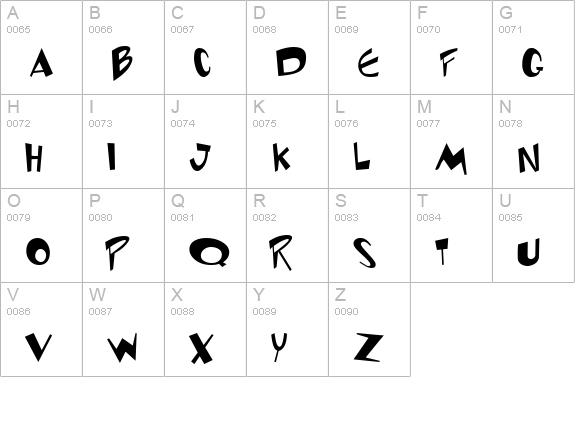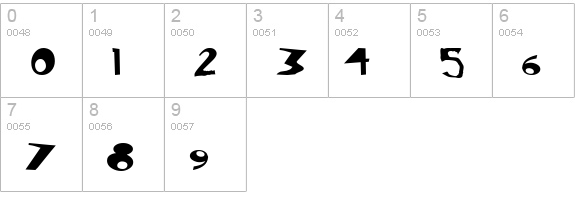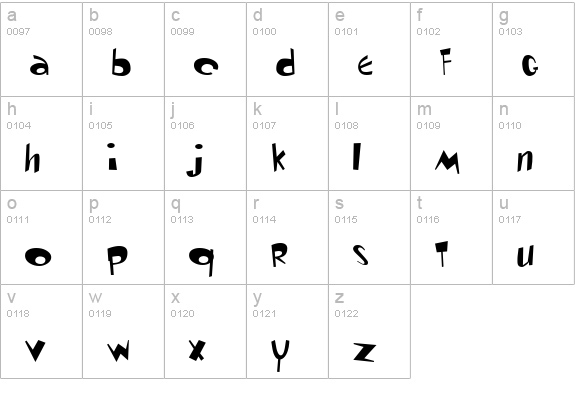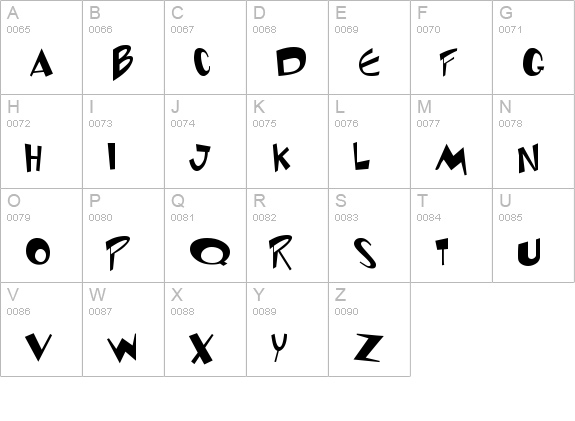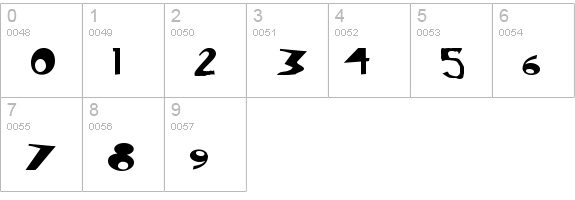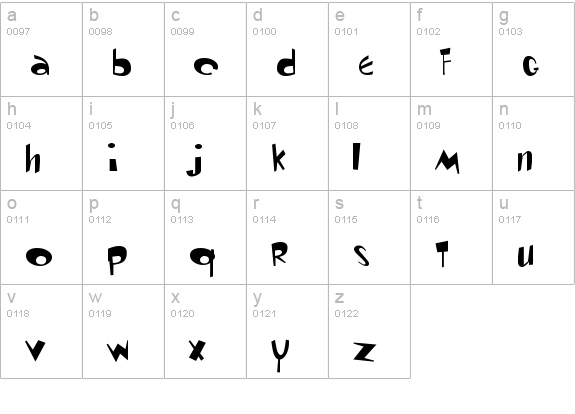
Ren & Stimpy Font Details
Introducing the Ren & Stimpy font, a whimsical and eccentric typeface that captures the essence of the iconic animated series. This font is a playful homage to the hilarious adventures of Ren and Stimpy, two of the most beloved cartoon characters of all time. Featuring quirky letterforms and exaggerated strokes, the Ren & Stimpy font brings to life the zany and unpredictable nature of the show. Each character is uniquely designed with a touch of absurdity, ensuring that your text will stand out and captivate any viewer. Whether you are a fan of the show or simply seeking a font that exudes fun and creativity, the Ren & Stimpy font is the perfect choice. Its versatility allows it to be used for a wide range of design projects, from playful logos and branding to eye-catching headlines and social media posts. What makes this font even more appealing is that it is freely available to download at FontsMarket.com. Yes, you read that right! You can get your hands on this amazing font without spending a dime. Embrace your inner Ren and Stimpy fan and unleash your imagination with this delightful typeface. So, why wait? Go ahead and download the Ren & Stimpy font today from FontsMarket.com. Add a touch of nostalgia and laughter to your designs, and watch as they come to life with the vibrant and animated spirit of Ren and Stimpy. Get ready to embark on a typographic adventure like no other!